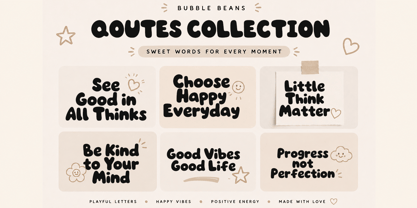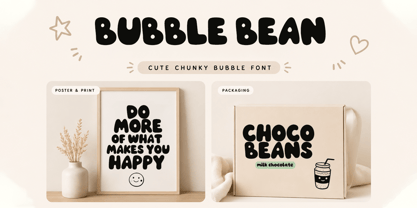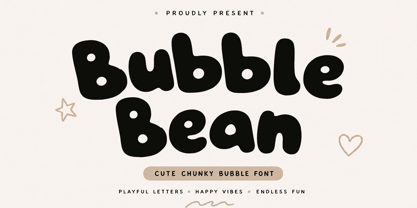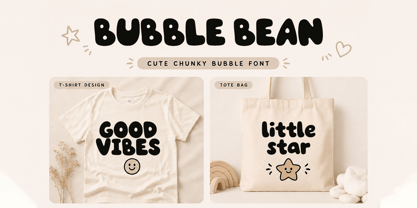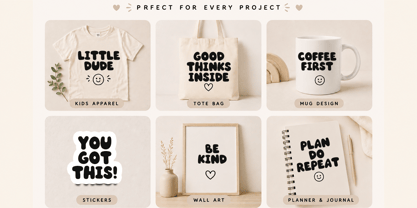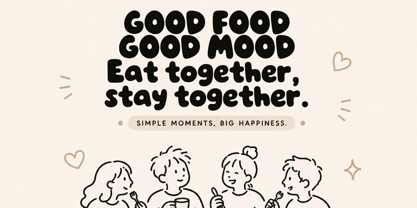
Bubble Bean
by Cocodesign
The Bubble Bean Font Family was designed by Muhammad Zaini and published by Cocodesign. Bubble Bean contains 3 styles and family package options. More about this family
Bubble Bean is a playful bubble-style display font that infuses a soft, cheerful, and character-rich essence into any design. With bold, rounded letterforms and smooth curves, this font is expertly crafted to provide a friendly and highly legible appearance across various sizes. Each character is meticulously designed with balanced proportions and gentle edges, ensuring a fun and approachable style without compromising clarity. Its chunky and eye-catching look makes it ideal for headlines and standout visual elements. Additionally, Bubble Bean includes extra doodles, offering creative possibilities to elevate your designs. These simple yet fun decorative elements contribute to a lively and expressive composition with ease. Bubble Bean is perfect for a diverse array of design needs, including kids' branding, food packaging, posters, social media content, merchandise, and other creative projects that embrace a fun and lighthearted theme. Its versatile style seamlessly adapts to both modern and casual designs. **Features:** - Bold and rounded letterforms - High readability for display use - Includes extra doodles for decoration - Playful and friendly vibe - Suitable for print and digital projects Bubble Bean radiates happy vibes and positive energy, making it an ideal choice for designs that aim to evoke warmth, fun, and engagement.